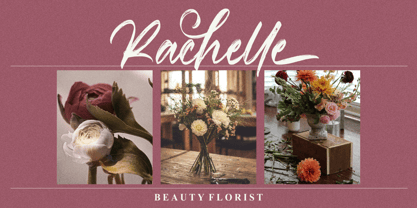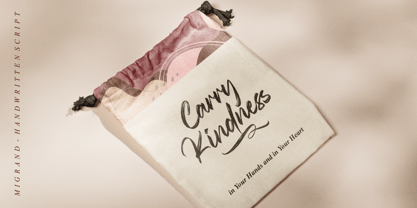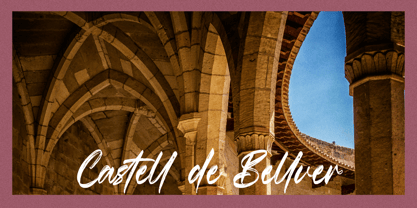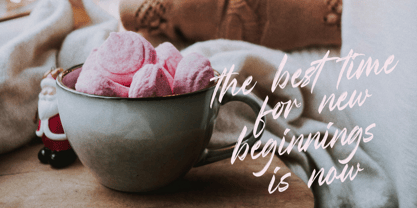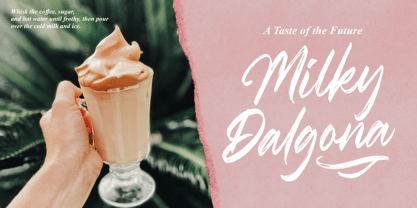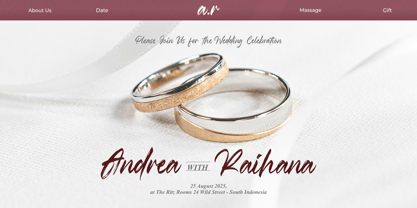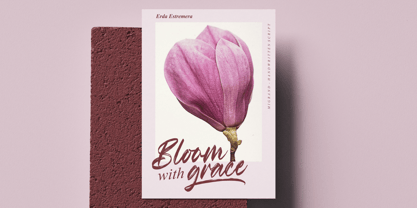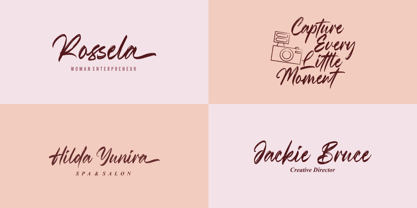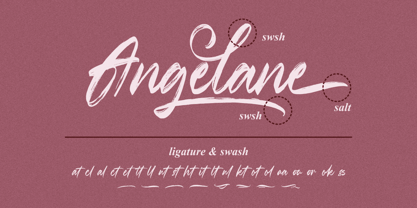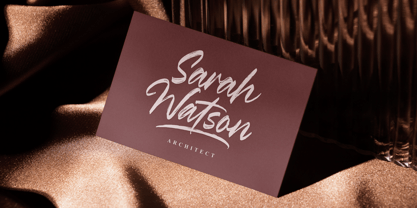
Migrand
by Ergibi Studio
The Migrand Font Family was designed by Riyadh Rahman and published by Ergibi Studio. Migrand contains 1 styles.
Migrand a Handwritten script font that blends the elegance of natural handwriting with the raw energy of textured brush strokes. Perfectly imperfect, Migrand carries a dynamic, organic feel that adds personality and movement to your designs.
With its flowing curves and authentic brush texture, Migrand is ideal for branding, posters, packaging, wedding invitations, social media graphics, and more. Every stroke is designed to give your work a handcrafted, artistic vibe—effortlessly stylish and uniquely bold.